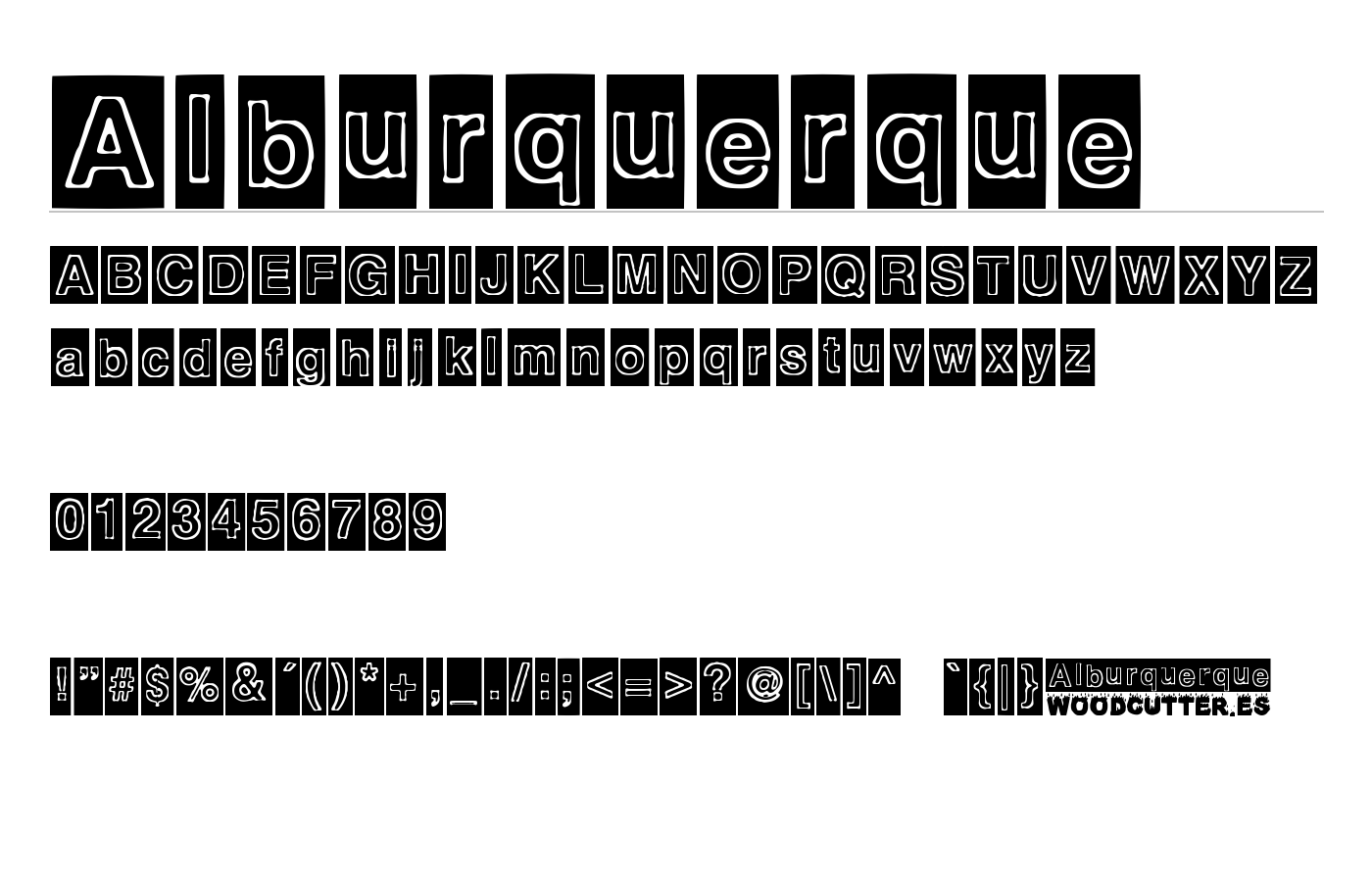
Alburquerque is a bold, playful sans serif font featuring a distinctive outlined style with solid black backgrounds that create a strong contrast and vintage stamp-like effect. Its uppercase and lowercase letters maintain a consistent, slightly condensed width with geometric, rounded shapes, making it eye-catching and ideal for fun, informal designs. This font works well for posters, logos, and creative branding where a quirky, standout look is desired.
Alburquerque Font